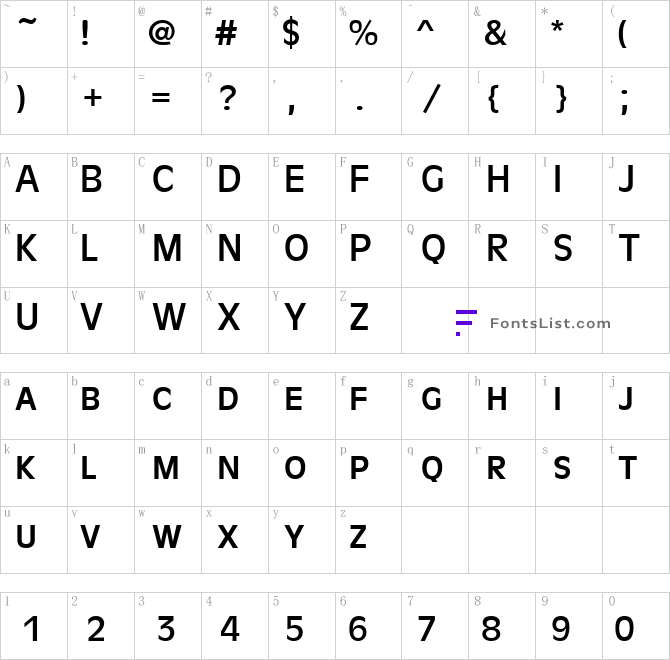
- Font Name:AntiqueOliDCDReg
- Subfamily:URW:AntiqueOliDCD-Regu:1994
- Full Name:AntiqueOliDCDReg
- PostScript:AntiqueOliDCD-Regu
AntiqueOliDCDReg.ttf is a very beautiful artistic font, AntiqueOliDCDReg.ttf is widely used in the design and printing of various books and pictures,AntiqueOliDCDReg.ttf has a strong visual impact,AntiqueOliDCDReg.ttf is a commonly used font in newspapers, magazines and books, and is used in posters, e-commerce Poster design, store design, logo design, font design and other fields.AntiqueOliDCDReg.